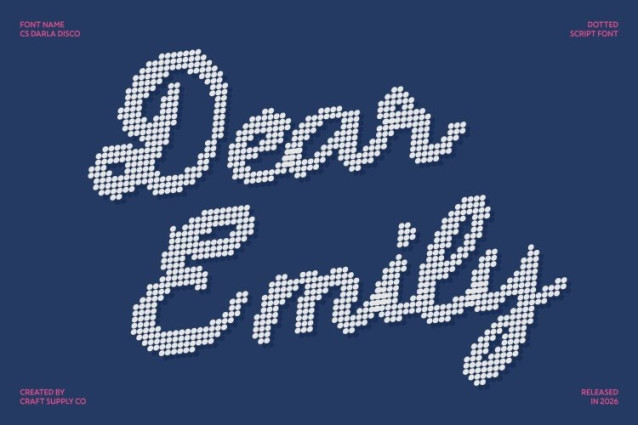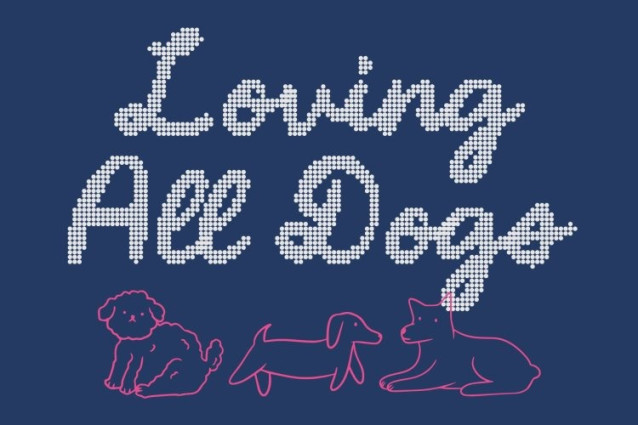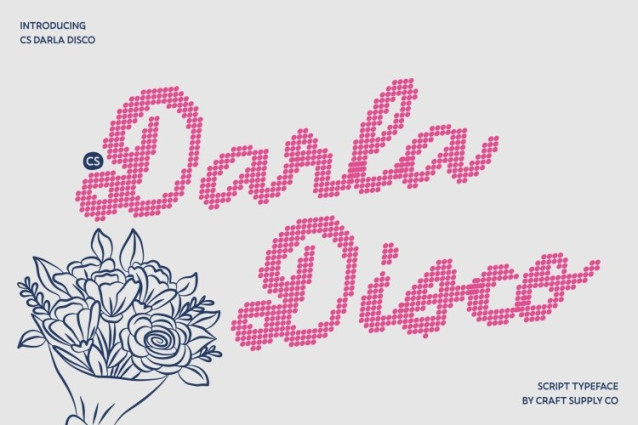
CS Darla Disco Font
CS Darla Disco Font – This is a chic handwritten script font that combines delicate beauty with a playful disco-inspired dotted texture. Its smooth strokes and stylish flow preserve the elegance of natural handwriting, while the sparkling dot details add a lively visual rhythm. This fusion creates a script that feels both refined and vibrant, bringing graceful personality to every word.
Delicate Strokes with Shimmering Flourishes
The charm of this font lies in its soft curves and thoughtful flourishes, now enhanced with subtle dotted accents that evoke shimmering lights. These decorative details enrich the letterforms without overwhelming them, maintaining clarity while adding a distinctive sparkle that makes the font visually captivating.
Elegant Expression with Festive Energy
Balancing sophistication with playful brilliance, this font transforms delicate handwriting into a dynamic design element. The graceful rhythm of the script combined with the lively disco texture creates typography that feels expressive, stylish, and full of movement perfect for designs that celebrate beauty and individuality.
Perfect for Branding, Invitations, and Fashion Graphics
This font shines in branding, invitations, fashion graphics, packaging, and editorial layouts. Its elegant yet vibrant personality makes it ideal for beauty brands, wedding stationery, boutique logos, and lifestyle visuals. The combination of chic script and sparkling details ensures that every design feels fashionable, memorable, and full of charm.